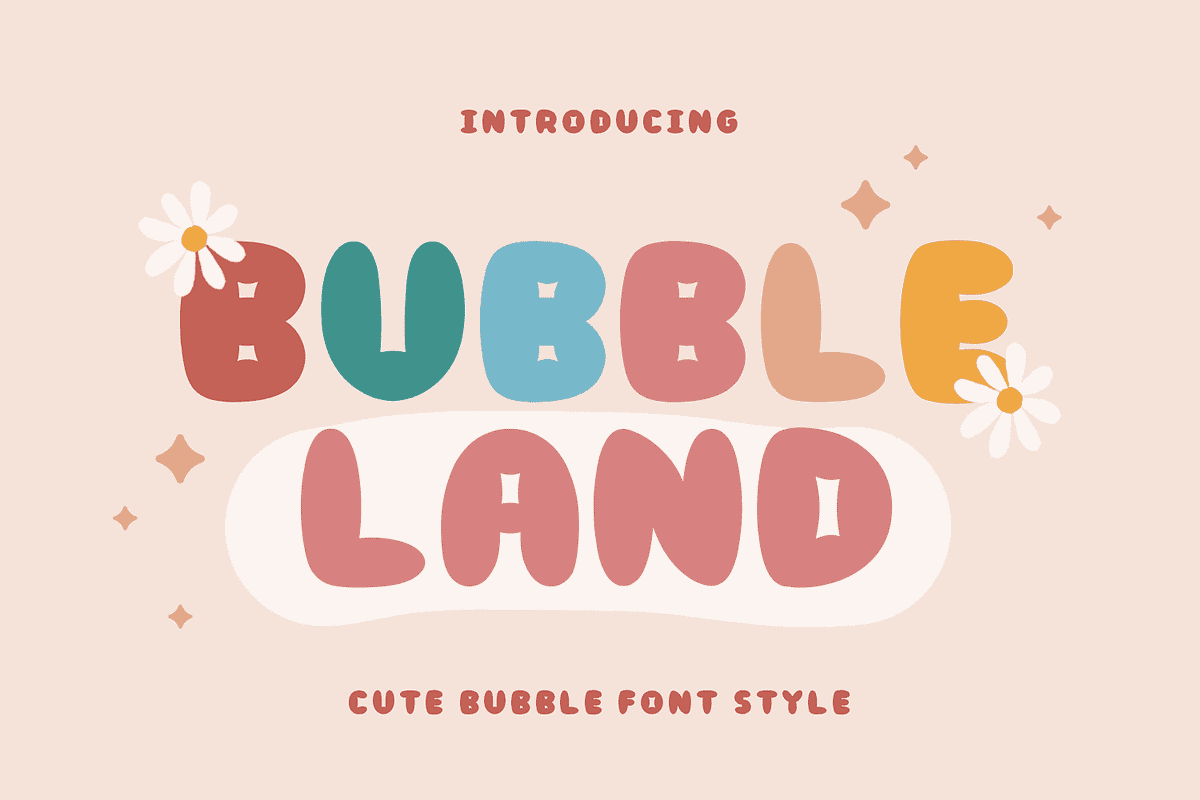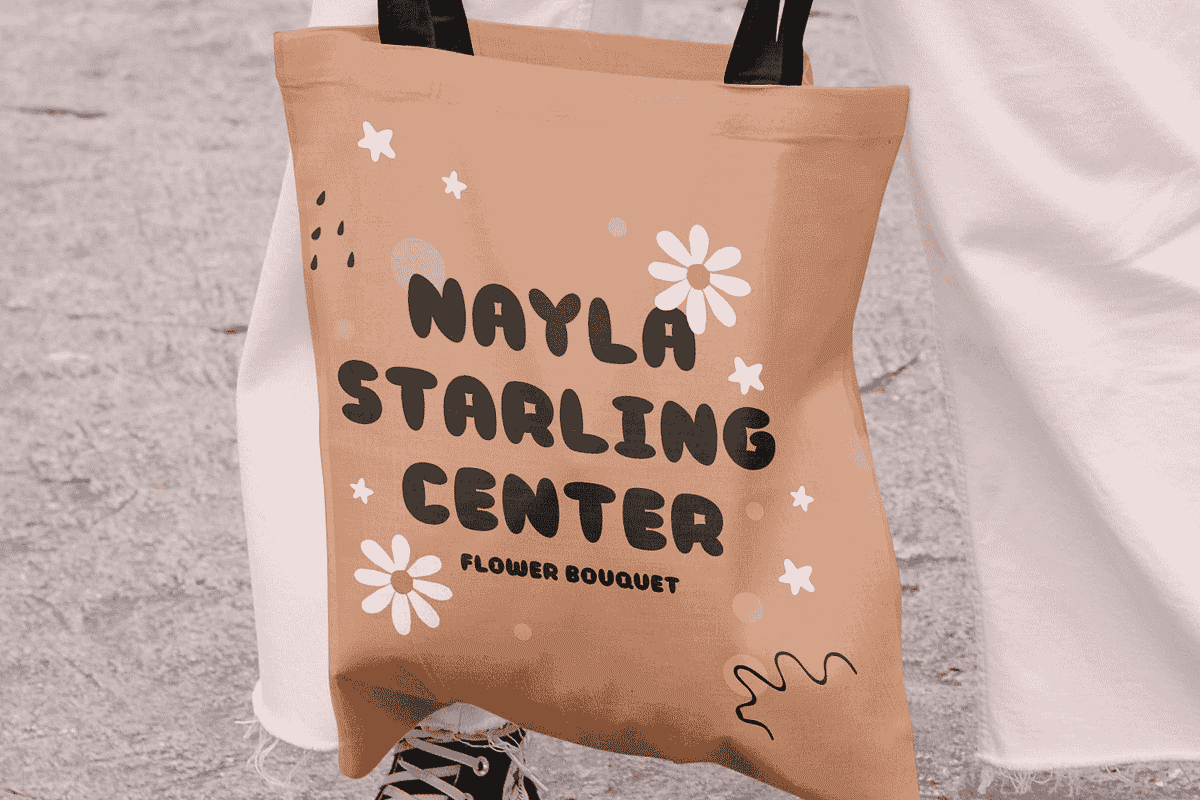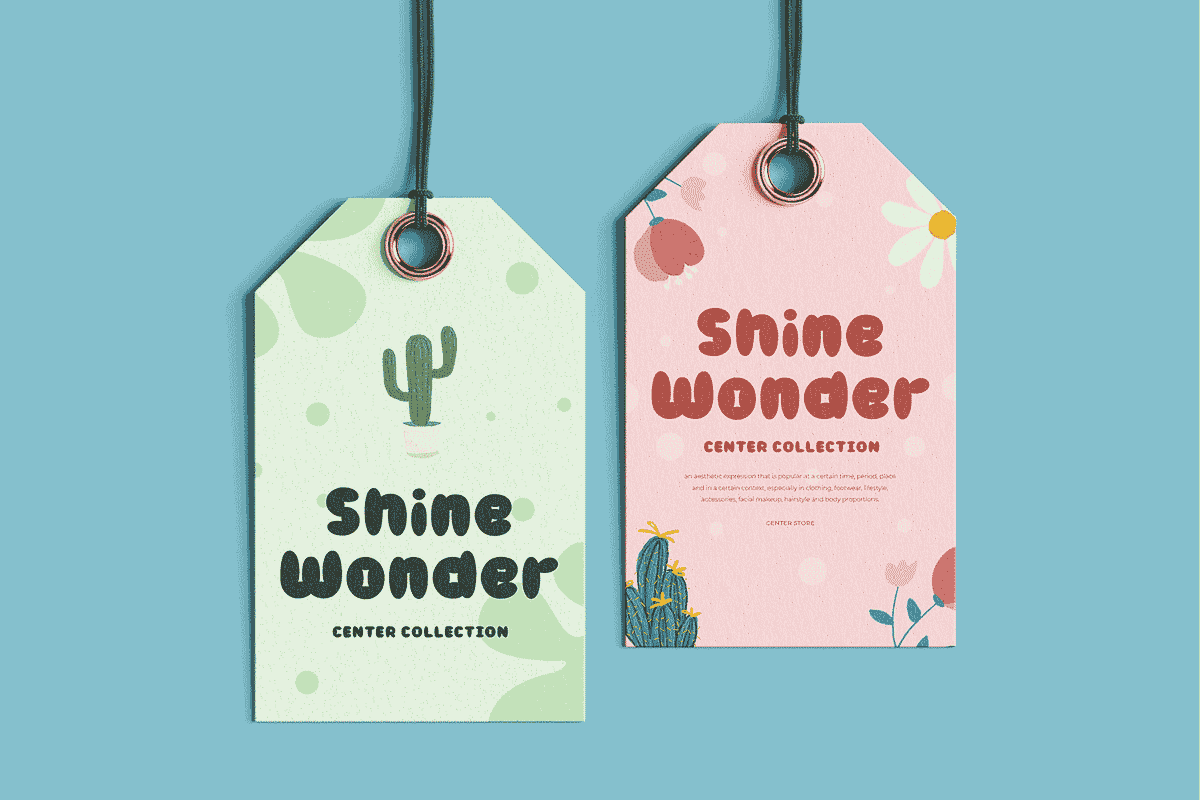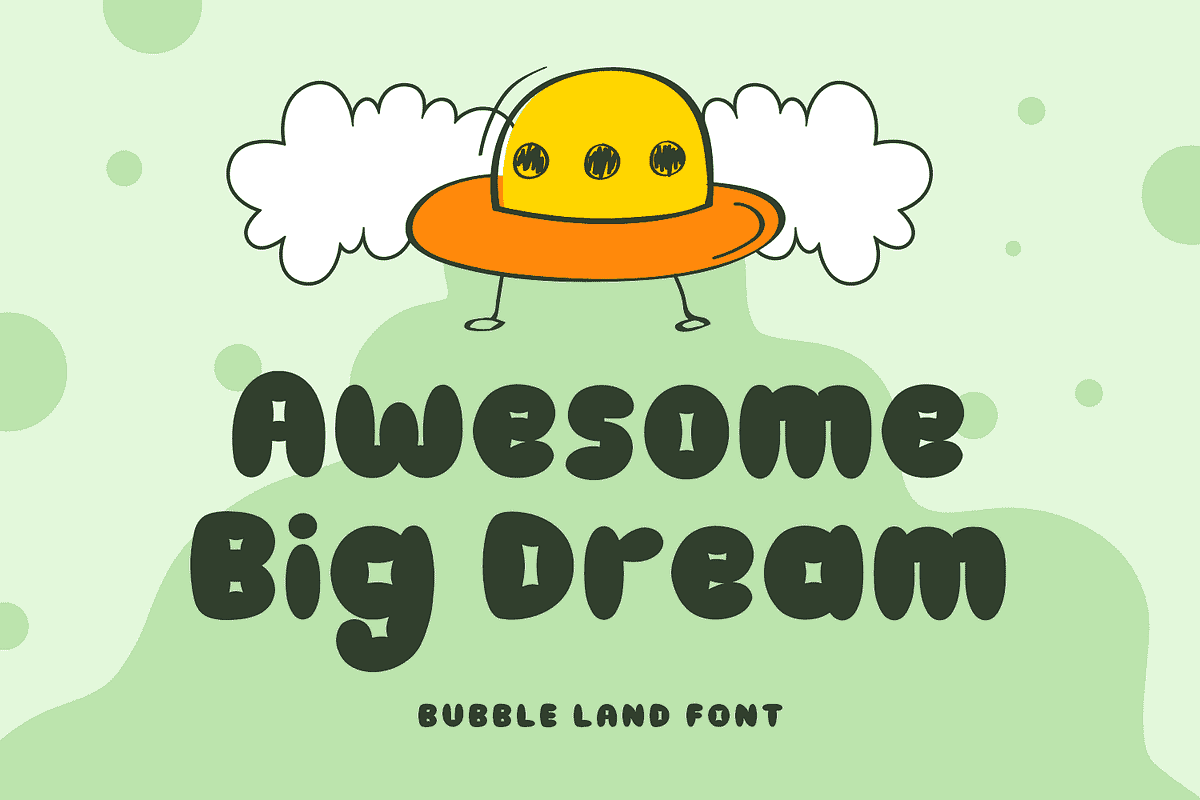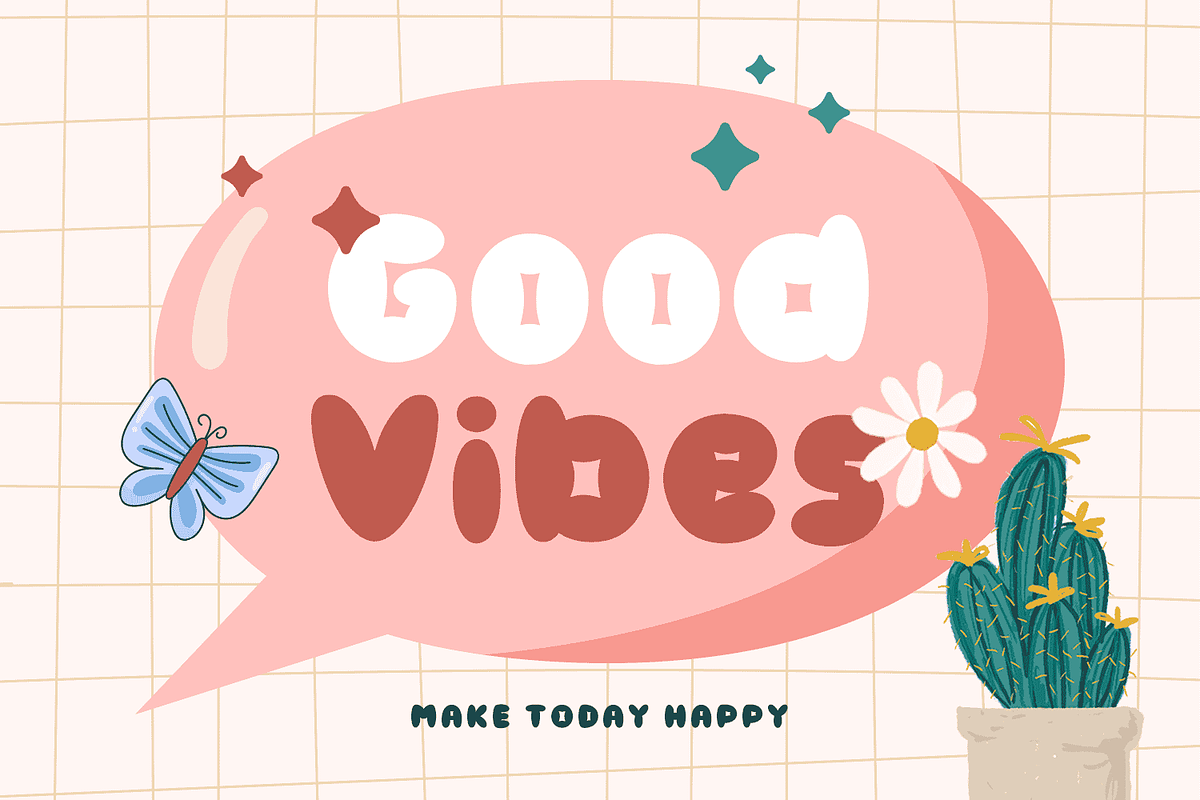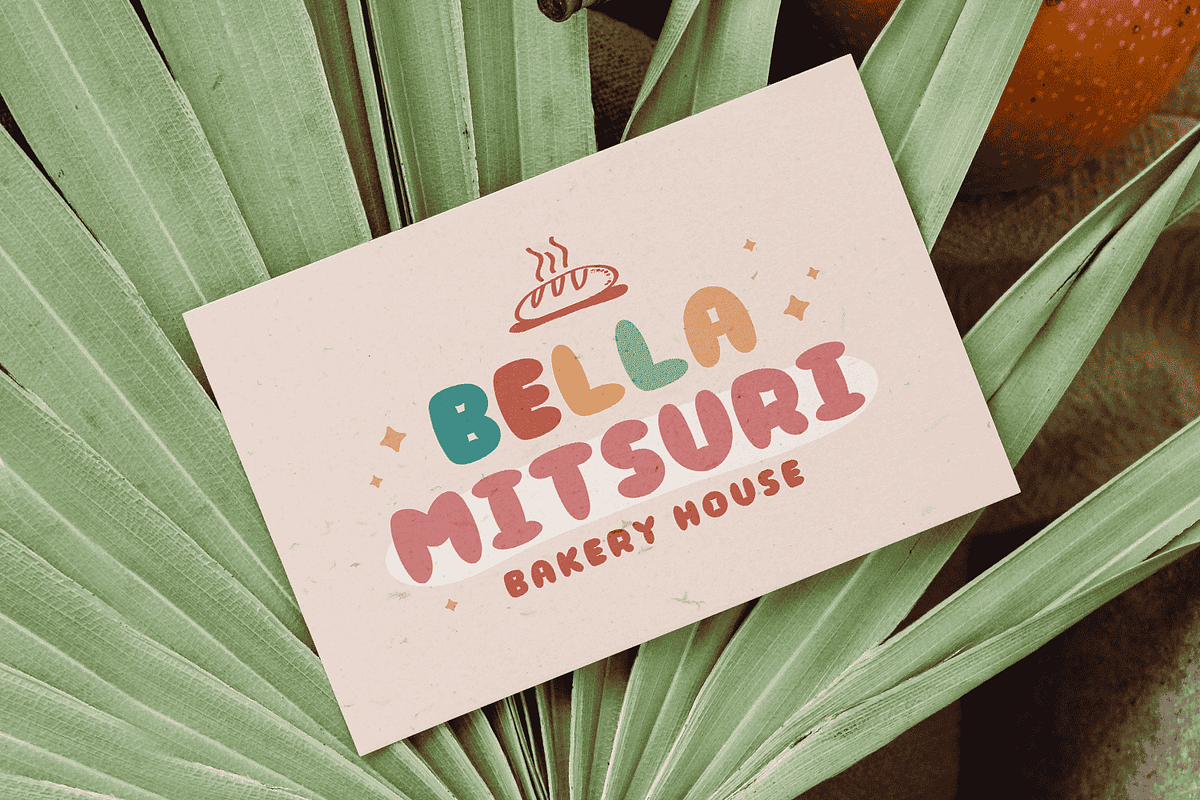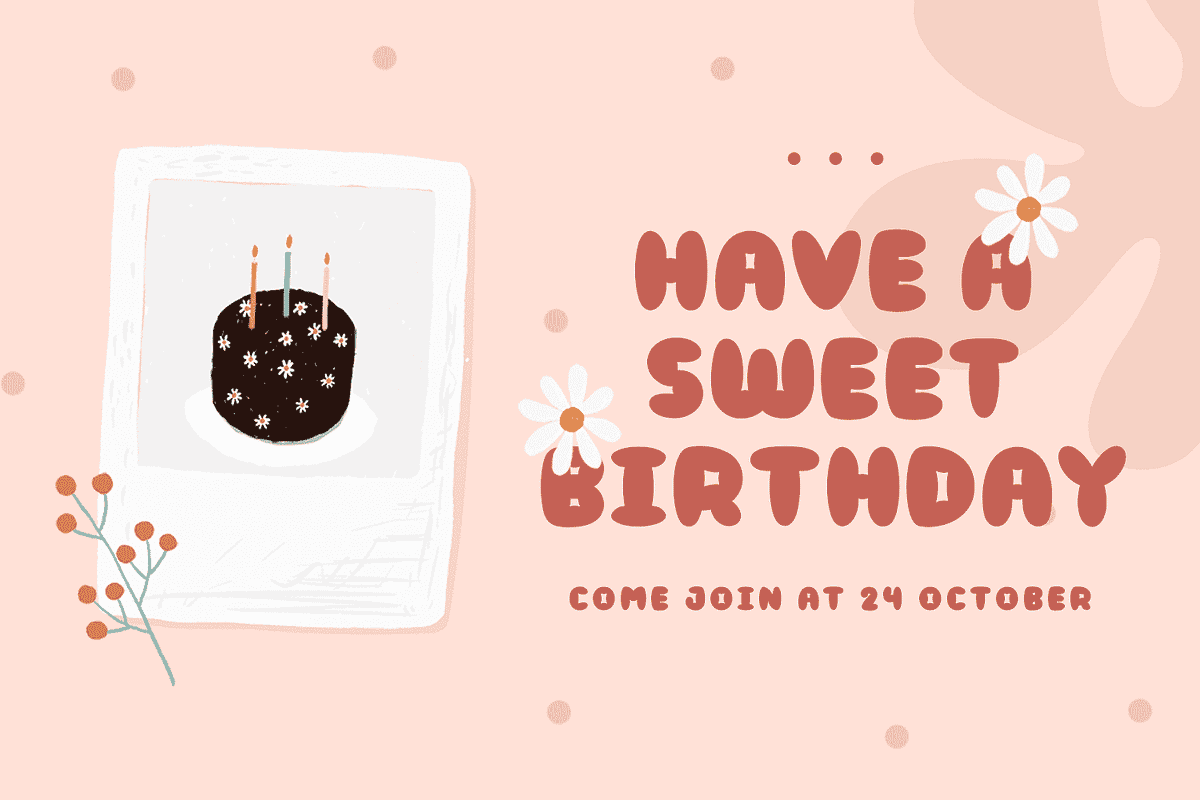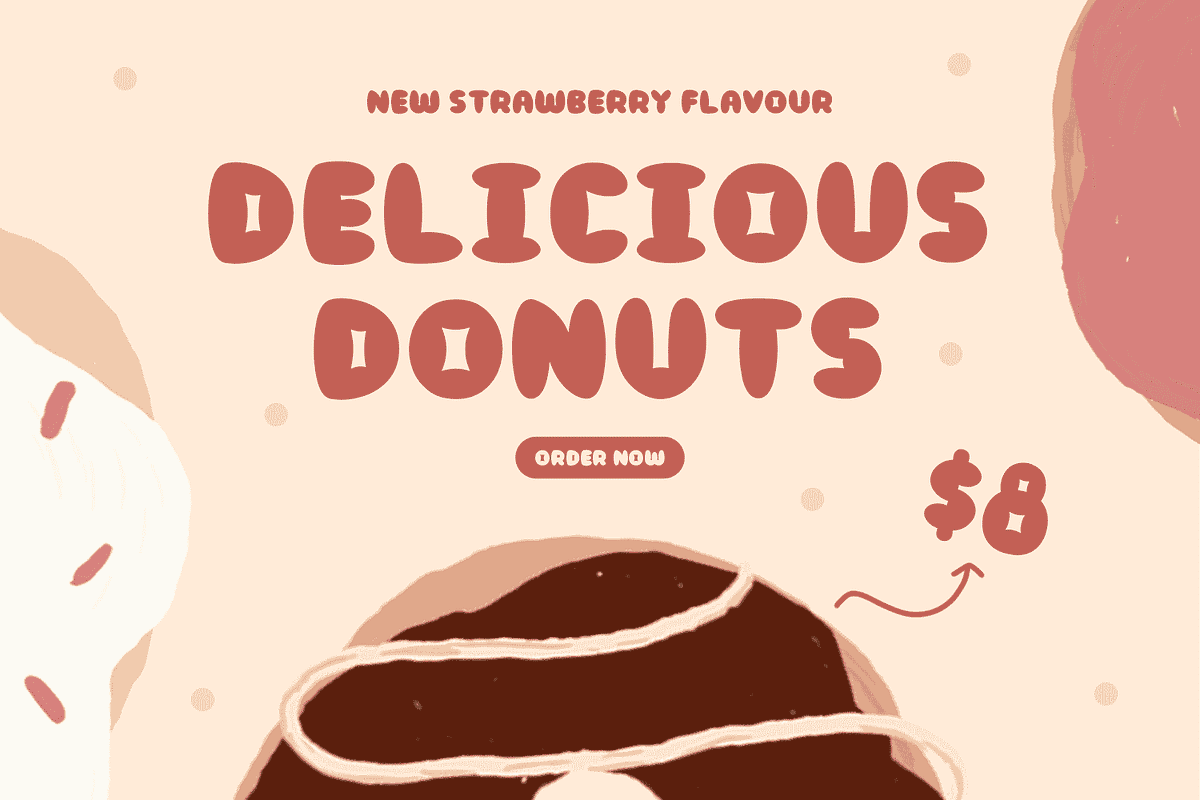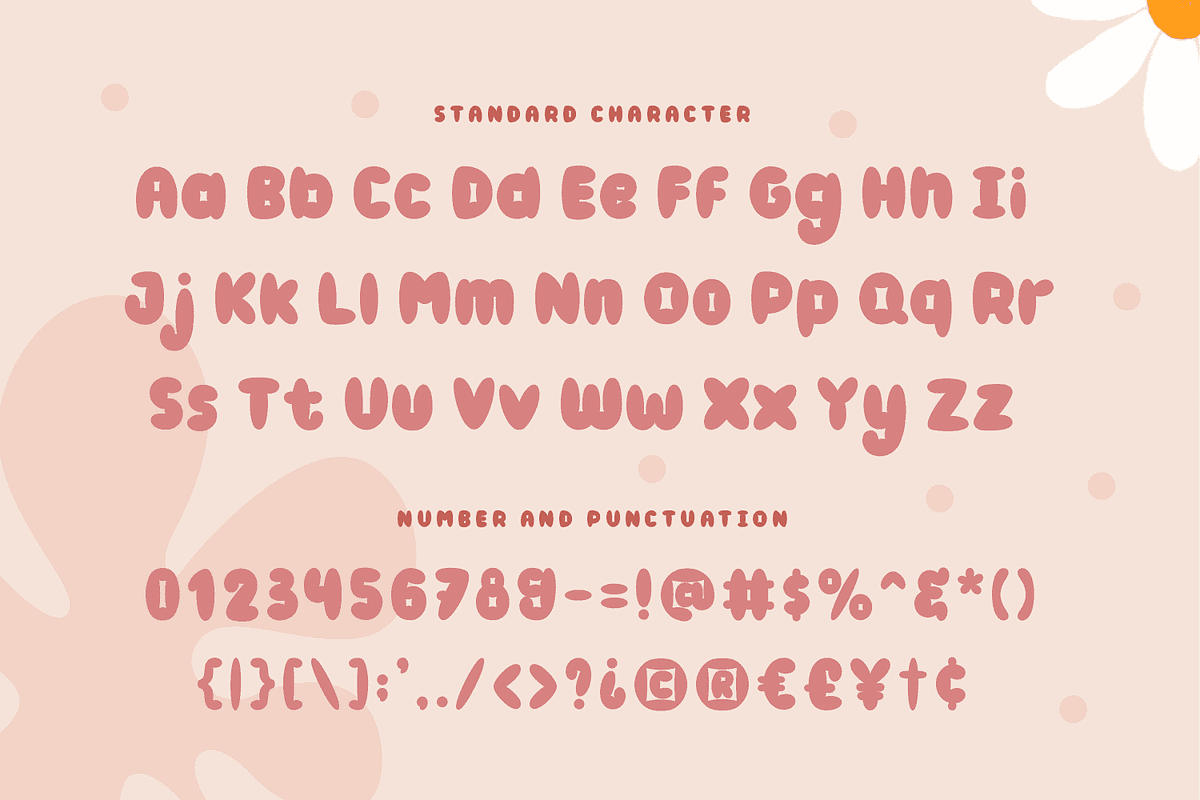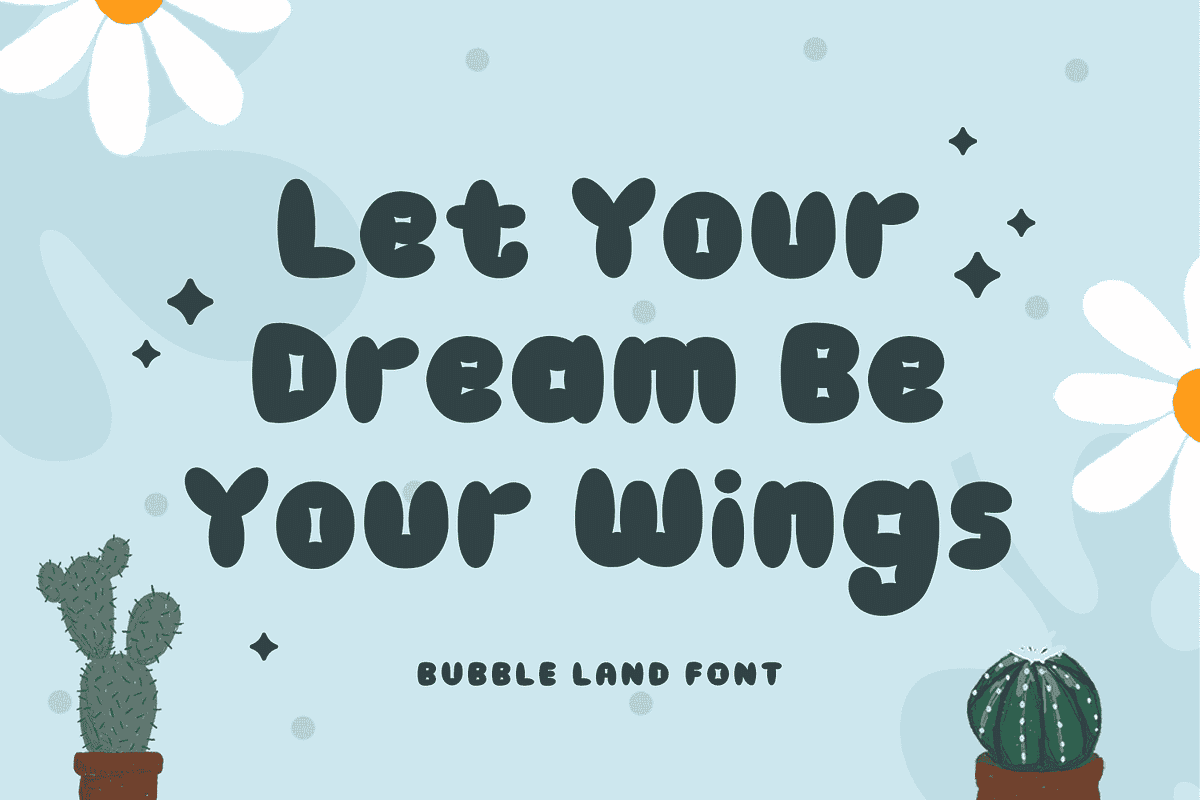
BUBBLELAND
Dive into a whimsical world of fun with Bubbleland, a delightful bubble font that brings a playful vibe to your designs! Perfect for themes like children’s parties, playful branding, birthday celebrations, and cheerful craft projects, this font features round, soft letters that evoke a sense of joy and lightheartedness. Each character is crafted to resemble a bubbly shape, creating an inviting and friendly atmosphere that resonates with audiences of all ages.
Bubbleland is ideal for a variety of creative applications, from eye-catching invitations to vibrant posters and social media graphics. Its unique, inflated design makes it a standout choice for any project that aims to bring smiles and excitement. Whether you’re designing for a birthday bash, a fun summer event, or crafting colorful classroom materials, this font is sure to add a touch of charm and whimsy to your work.
What sets Bubbleland apart is its versatility. It works beautifully in both digital and print formats, making it perfect for children’s books, educational materials, and playful merchandise. The font's cheerful character shapes are complemented by its easy readability, ensuring that your messages shine through with clarity and fun.
Elevate your designs with the joy of Bubbleland! Let this enchanting font spark creativity and inspire laughter in your projects. Perfect for DIY crafts, party decorations, and playful branding, Bubbleland is your go-to choice for adding a bubbly touch to every occasion. Embrace the magic of bubbles and make your designs unforgettable with this charming font!